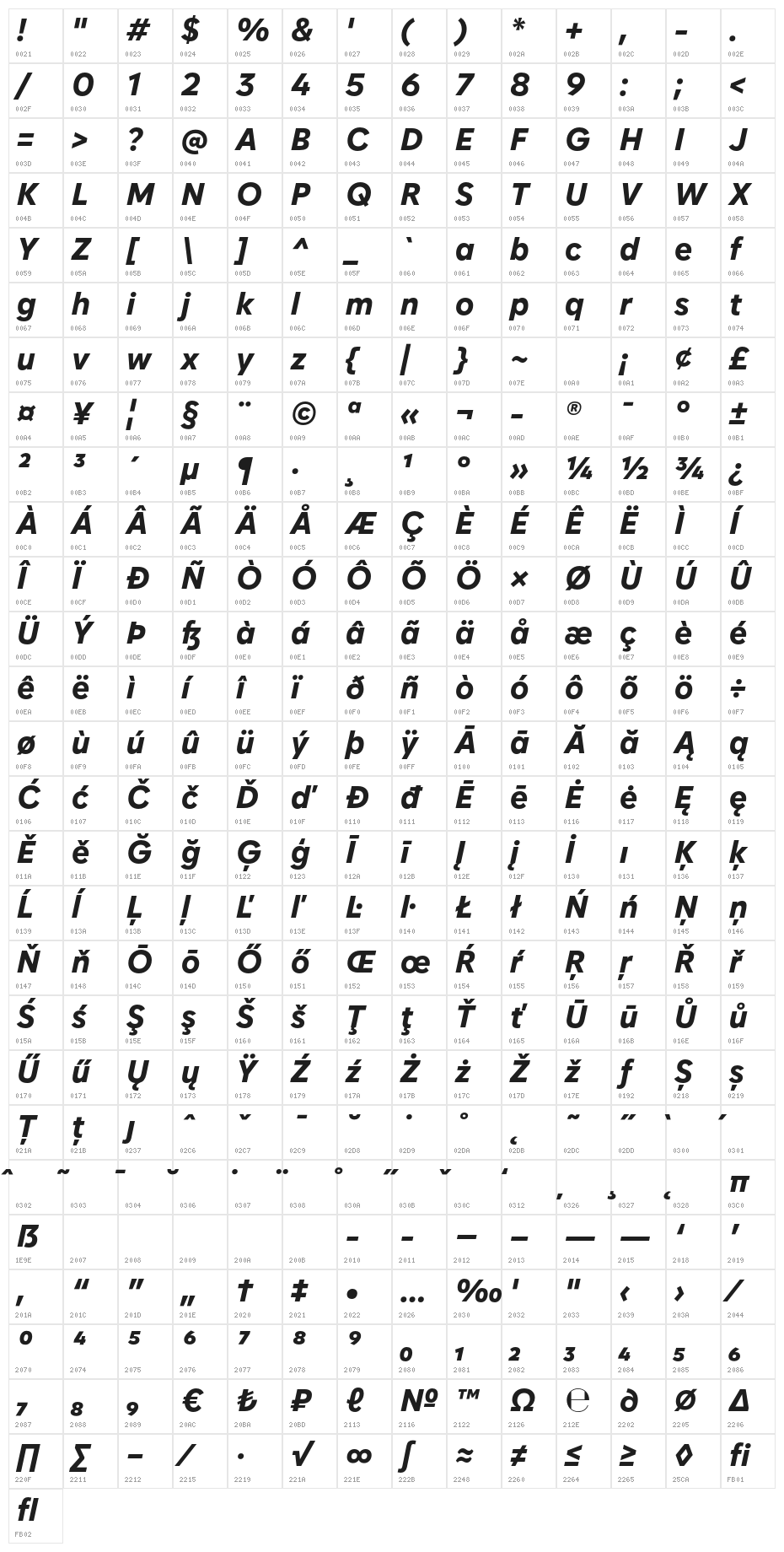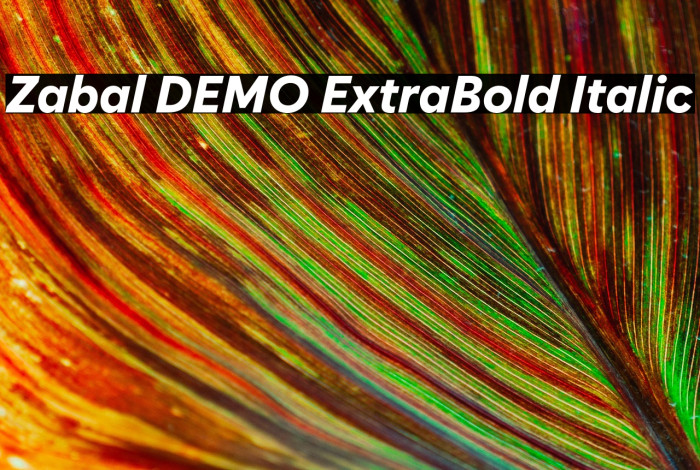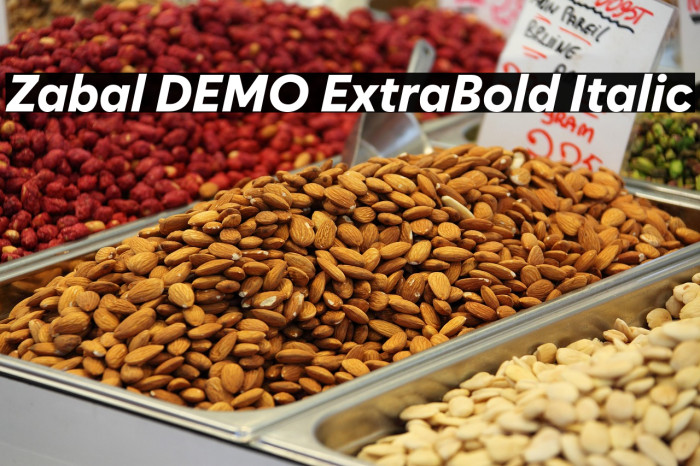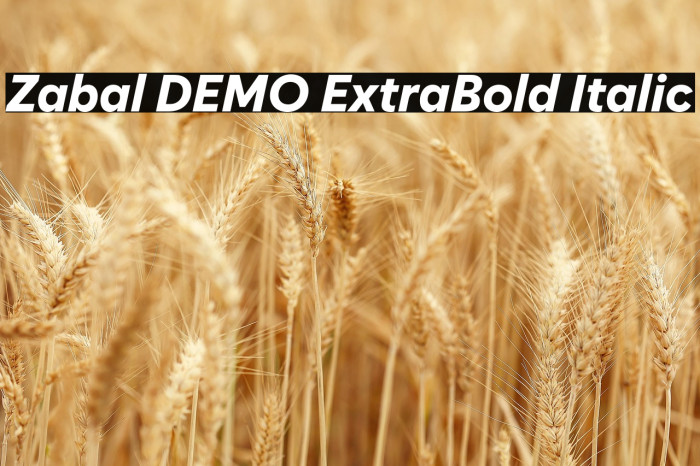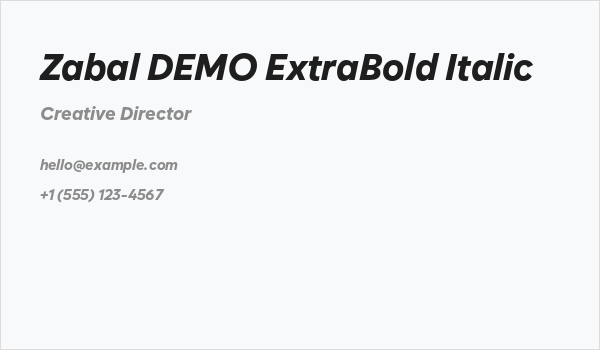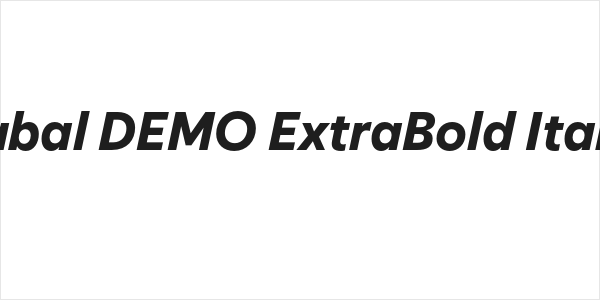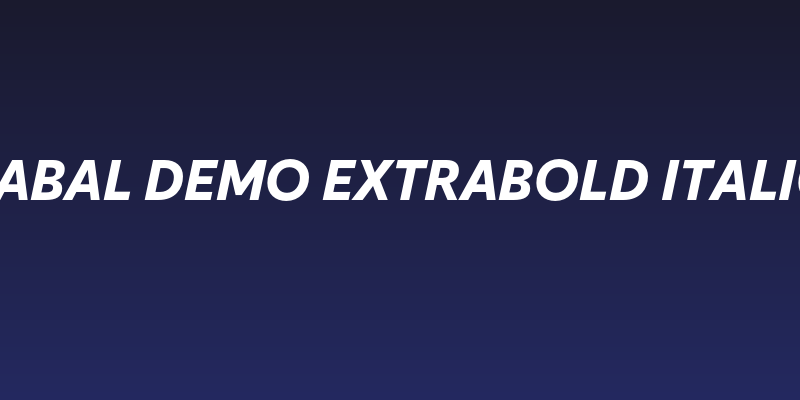
Zabal DEMO ExtraBold Italic Font
Zabal DEMO ExtraBold Italic Description
This font exhibits a bold and dynamic presence with its extra-bold weight and italic style. The characters are slanted, adding a sense of motion and emphasis. The strokes are thick and consistent, providing a strong visual impact. The uppercase letters are robust and commanding, while the lowercase letters maintain a harmonious balance with a slightly rounded appearance. The numerals are clear and bold, ensuring readability. Special characters are well-defined, complementing the overall design. This font is suitable for making statements and capturing attention.
| Use Case | Headlines, Logos, Advertising |
| Proposed Projects | Ideal for headlines, branding, advertising, and any project requiring a bold statement. |